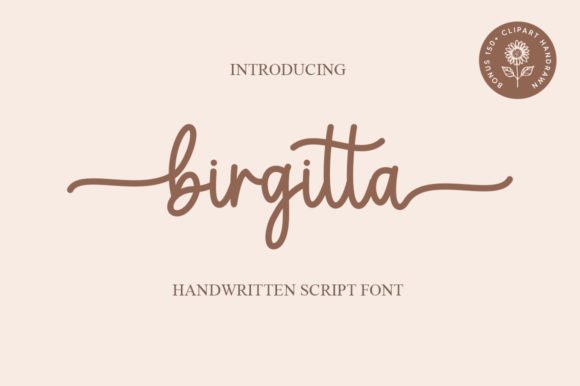
Timeless Elegance for Your Next Design Project
Have you ever found yourself scribbling notes in the margins of your favorite book, and suddenly, a beautiful script font catches your eye? For many designers, that’s the moment when inspiration strikes, and creativity takes over. For those who crave that same feeling in their digital designs, we’re excited to introduce the Birgitta Font – a stunning script font that brings timeless classic calligraphy into the modern era.
This elegant font is designed to add a touch of sophistication to your projects, from wedding invitations to branding materials. With its impeccable form and contemporary atmosphere, the Birgitta Font is a valuable asset for any designer looking to elevate their work. As a PUA-encoded font, you’ll have access to all of the glyphs and swashes, allowing you to customize your designs with ease.
Birgitta Font Key Features
- Unique Characteristics: The font features a distinctive, elegant design with a mix of modern and traditional elements, making it suitable for a variety of applications, including publishing, advertising, and graphic design.
Birgitta Font Review
Overall, I think the Birgitta font has its strengths and weaknesses. Let’s start with what works well: ✨ The Birgitta font has a unique, elegant feel to it, making it perfect for use in high-end branding or luxury products. The font’s refined lines and delicate curves give it a sophisticated, almost vintage feel that’s hard to find in modern fonts.
Here are some specific features that I appreciate about the Birgitta font:
- ✨ Elegant, refined lines
- ✨ Delicate curves and flourishes
- ✨ Versatile and suitable for a range of applications
However, there are also some limitations to consider: ⚠️ The Birgitta font may not be the best choice for use in large blocks of text, as the delicate lines and curves can become lost or difficult to read. Additionally, the font may not be suitable for use in digital displays or screens, as the fine details may not render well.
Overall, I think the Birgitta font is a great choice for designers looking to add a touch of elegance and sophistication to their projects. While it may have some limitations, its unique feel and refined lines make it a great addition to any designer’s toolkit.
Tip: Use Birgitta Font for headings and titles to add a touch of elegance to your design.
Tip: Use Birgitta Font for typography-heavy designs, such as logos or branding materials.
Tip: Use Birgitta Font for formal documents or presentations to add a touch of sophistication.
Birgitta Font is suitable for:
- Formal documents and presentations
- Typography-heavy designs, such as logos or branding materials
- Adding a touch of elegance to your design